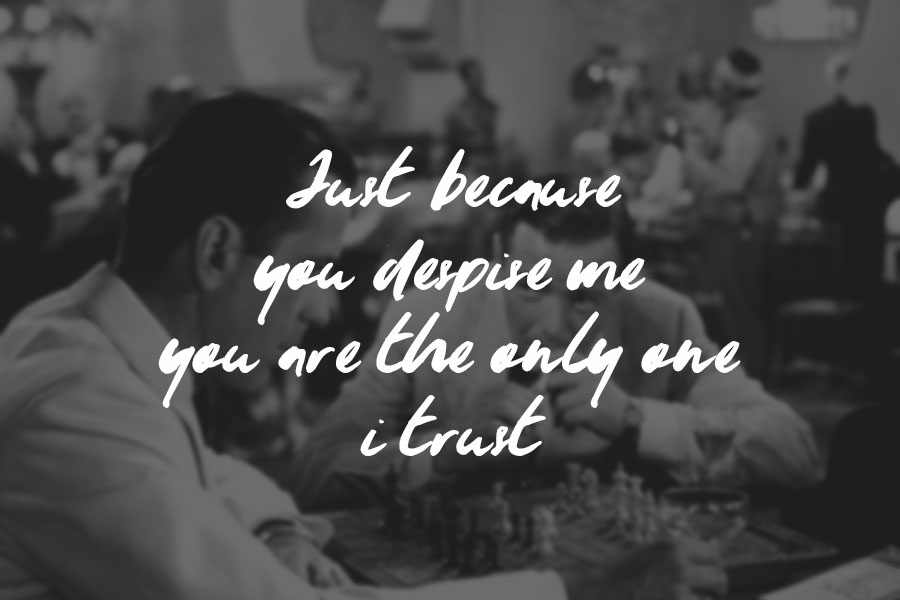
YoungBlood Font
YoungBlood is a script free font that are created for many purposes, such as quotes, poster design, business card, greeting card and more. Was released by Zaffar Ansari, you can use this font for personal use. Make sure to check out his portfolio for more gorgeous fonts!